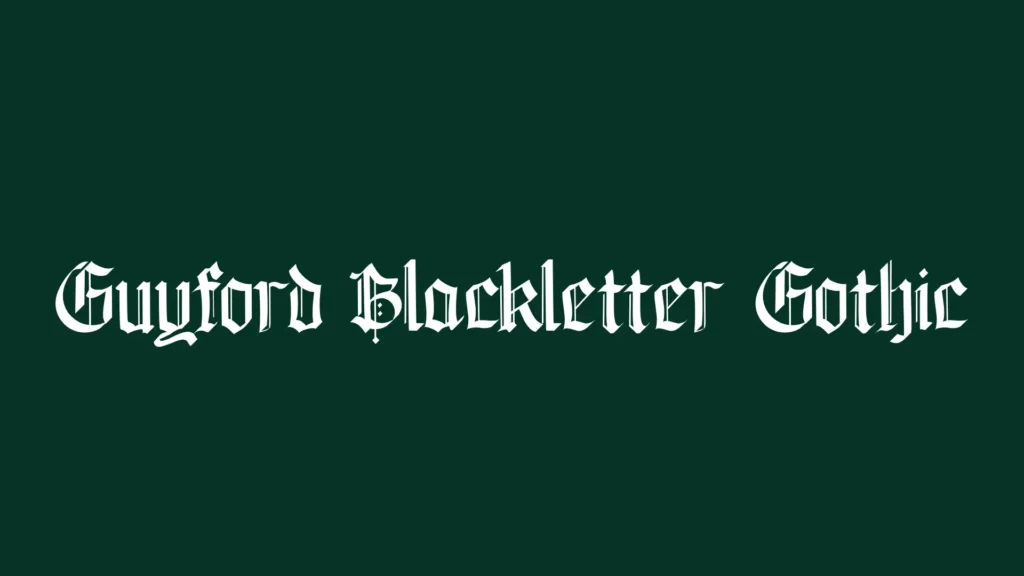
Guyford Blackletter is an incredibly bold, modern gothic blackletter display font designed by Mohamad Farhan Ramadhan and released through his studio, Mofr24, in October 2022. It is meticulously engineered to provide a distinct, commanding, and highly assertive visual presence.
Guyford Blackletter
Guyford Blackletter is a medieval font.